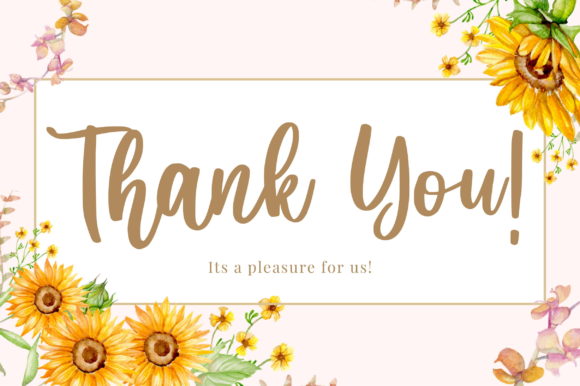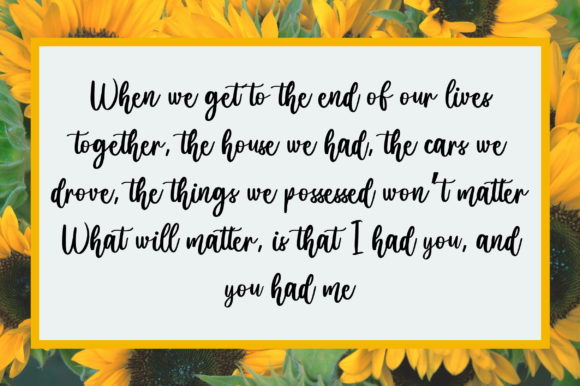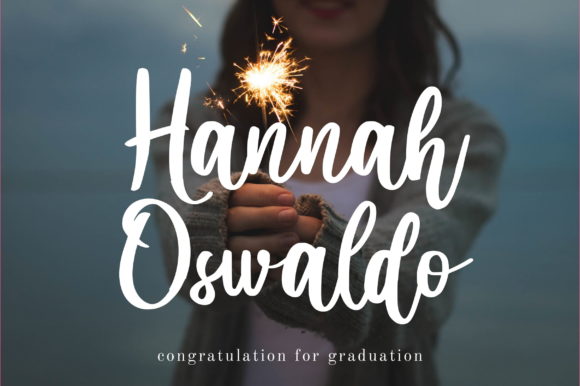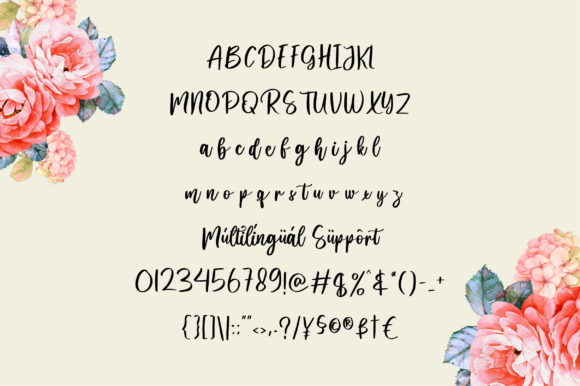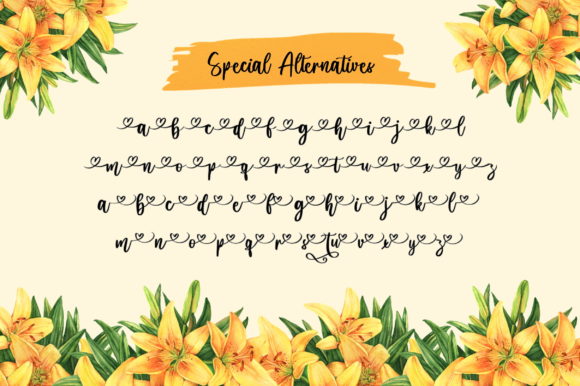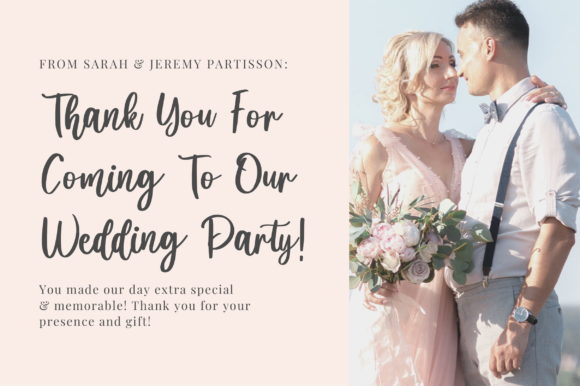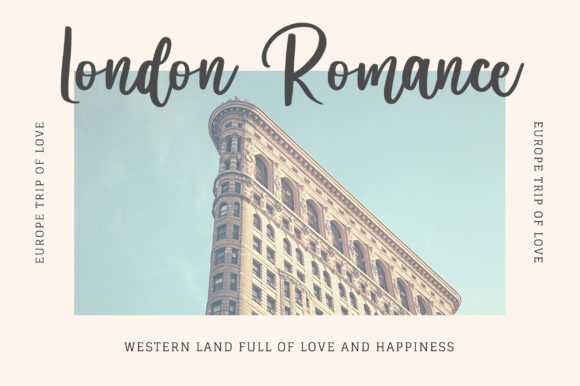
Metadine Font
Metadine is a beautiful and distinctive font that will bring a touch of luxury and elegance to your design projects. With its unique style and stunning impact, this font is sure to captivate and leave a lasting impression.
The refined and sophisticated look of Metadine makes it a perfect choice for a wide range of design applications. Whether you’re working on branding materials, invitations, posters, packaging, or any other creative project, this font will elevate the overall aesthetic and add a sense of luxury and prestige.
Metadine’s PUA encoding ensures easy access to its amazing glyphs and ligatures. This means you can effortlessly explore and utilize the full range of decorative elements and special characters available in the font. The versatility of the glyphs and ligatures allows you to create customized designs and add a personal touch to your projects.
The impact of Metadine lies not only in its visual appeal but also in its ability to convey a sense of elegance and sophistication. The carefully crafted letterforms and unique design elements make every word and sentence stand out, drawing attention and creating a memorable visual experience.
Whether you’re designing for print or digital media, Metadine’s stunning impact will shine through and grab the viewer’s attention. Its versatility and ability to adapt to different design styles make it a valuable asset in your font library.
In conclusion, Metadine is a beautiful and unique font that adds a luxury spark to any design project. With its PUA encoding, you can easily access all of the amazing glyphs and ligatures to create stunning and customized designs. Embrace the elegance of Metadine and let it elevate your creations to new heights.